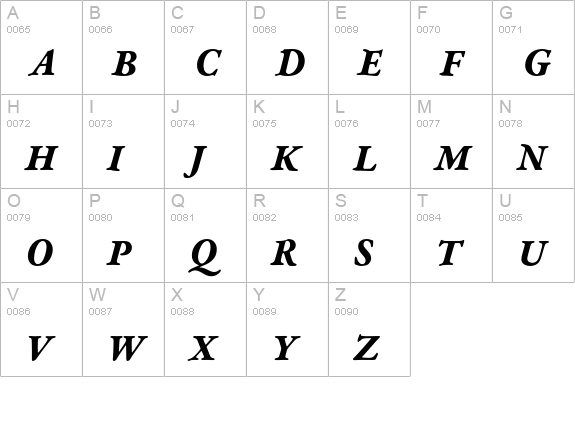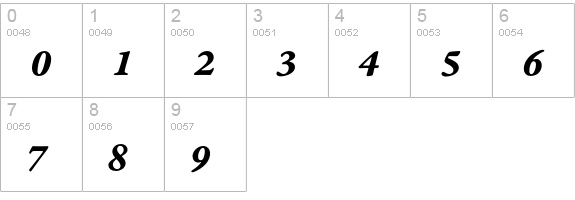
Garamond Premier Pro Bold Italic Caption is a strong, high-contrast, italic variant in the Garamond typeface family \xE2\x80\x94 well suited to headlines, attention-grabbing titles, and strong calls-to-action.
Garamond Premier Pro Bold Italic Caption font is a sophisticated and elegant typeface that exudes a sense of refinement and class. Its bold and italic design commands attention while maintaining a sense of grace and style. Perfect for adding a touch of sophistication to any project, this font is ideal for captions, headings, and other design elements that require a bold yet elegant touch. And the best part? Garamond Premier Pro Bold Italic Caption font is available for free download at FontsMarket.com. So you can easily access this exquisite typeface and elevate your designs without any cost. Don't miss out on the opportunity to enhance your projects with this stunning font - download it for free today at FontsMarket.com!